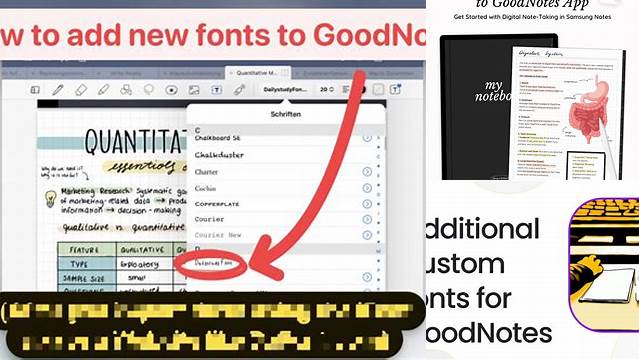
Best Fonts For GoodNotes 5: A Comprehensive Guide
Hey guys! Ever felt like your notes in GoodNotes 5 could use a little oomph? You're not alone! The right fonts can transform your digital handwriting from blah to brilliant. This guide is your deep dive into the world of fonts goodnotes 5, covering everything from finding and installing new fonts to mastering them for killer note-taking. Let's make those notes pop!
What are the Best Fonts for GoodNotes 5?
Choosing the best fonts goodnotes 5 can feel like finding a needle in a haystack. There are so many options, right? But don't sweat it! The ideal font depends on your personal style and what you're using GoodNotes 5 for. Are you a minimalist who loves clean lines? Or do you prefer a touch of elegance and personality? Think about the overall aesthetic you're going for. Do you want your notes to feel professional and polished, or more casual and creative? This initial reflection will help you narrow down your options and choose fonts that truly resonate with your note-taking style. Remember, the best fonts goodnotes 5 are the ones that make you excited to take notes!
The Importance of Font Pairing in GoodNotes 5
Font pairing is like the secret sauce of great design. Choosing the right combination of fonts can take your notes from looking good to looking amazing. The basic idea is to use two or three fonts that complement each other. Typically, you'll want one font for your headings and another for your body text. A common approach is to pair a serif font (like Times New Roman or Georgia) with a sans-serif font (like Helvetica or Arial). Serifs have those little feet or strokes at the end of the letters, while sans-serifs have a cleaner, more modern look. Pairing a serif and a sans-serif can create a nice visual contrast, making your headings stand out while keeping your body text readable. But don't be afraid to experiment! You can also pair two sans-serifs or two serifs, as long as they have enough contrast in weight and style. The key is to create a visual hierarchy that guides the reader's eye. A well-paired font combination makes your notes more engaging and easier to digest. So, play around with different font pairings and see what works best for you. Think of it as a fun design challenge!
Best Handwriting Fonts for GoodNotes 5
Want to give your notes a personal touch? Handwriting fonts are the way to go! These fonts mimic the look of real handwriting, adding a unique and human element to your digital notes. They're perfect for adding emphasis, creating a more casual vibe, or simply making your notes feel more…you. There are tons of handwriting fonts out there, ranging from elegant cursive scripts to messy and playful handwritten styles. When choosing a handwriting font, consider the overall tone you're going for. A formal script font might be great for headings or titles, while a more casual font might be perfect for body text. Readability is also key. You want a font that looks handwritten but is still easy to read, especially for longer passages of text. Try out different handwriting fonts and see which ones best capture your personality and style. Adding a handwritten touch to your notes can make them feel more authentic and engaging, almost like you're writing on paper. It's a fantastic way to personalize your GoodNotes 5 experience!
How to Change the Default Font in GoodNotes 5
Okay, you've found your dream font and you're ready to use it everywhere. But switching fonts every time you start a new note can be a pain, right? Luckily, GoodNotes 5 lets you set a default font for your notebooks! This is a huge time-saver and helps you maintain a consistent style across all your notes. To change the default font, go to the GoodNotes 5 settings (the gear icon in the top-right corner), then tap "Notebook Templates." From there, you can customize the default font, color, and paper style for your notebooks. Choose your favorite font and set it as the default, and boom! All your new notes will automatically use that font. This is especially useful if you have a particular font you love for note-taking or if you're trying to create a cohesive look for your digital notebooks. Setting a default font is a small change that can make a big difference in your workflow and the overall aesthetic of your notes. So, go ahead and set your default font and enjoy consistent, stylish note-taking!
Font Size Matters: Tips for Legible Notes in GoodNotes 5
It's not just about the font itself, guys, the size of your font is super important too! No matter how beautiful your chosen font is, if it's too small, your notes will be a pain to read. And if it's too big, you'll waste a ton of space. Finding the right font size is all about balance and legibility. A good rule of thumb is to use a font size that's comfortable to read on your iPad screen without having to squint or zoom in. For body text, a font size between 12 and 14 points usually works well. For headings, you'll want to use a larger font size to create a visual hierarchy and make them stand out. Experiment with different font sizes and see what feels best for you. Consider the font's design as well. Some fonts appear larger or smaller than others at the same point size. The key is to prioritize readability. Your notes are only useful if you can actually read them! So, pay attention to font size and make sure your notes are easy on the eyes. A well-chosen font size will make your notes more enjoyable to read and review.
Color Psychology and Fonts in GoodNotes 5
Did you know that colors can actually affect how we feel and think? It's called color psychology, and it's pretty fascinating! And guess what? It applies to fonts too! The color of your font can influence the overall mood and impact of your notes. For example, using a bright color like blue or green can create a sense of calm and focus, while a bold color like red can grab attention and signal importance. When choosing a font color, think about the message you want to convey and the emotions you want to evoke. If you're taking notes on a serious topic, you might opt for a more neutral font color like black or gray. If you're brainstorming creative ideas, you might choose a brighter, more playful color. You can even use different font colors to highlight key information or create visual cues in your notes. Just don't go overboard! Too many colors can be distracting and make your notes look cluttered. A few well-chosen font colors can add depth and personality to your notes, making them more engaging and memorable. So, experiment with color and see how it can enhance your GoodNotes 5 experience!
H2: The Role of Kerning and Tracking in GoodNotes 5 Fonts
Kerning and tracking might sound like technical jargon, but they're actually essential for creating legible and visually pleasing notes in GoodNotes 5. Kerning refers to the spacing between individual letters. Poor kerning can make words look awkward or even difficult to read. Tracking, on the other hand, refers to the overall spacing between all letters in a word or phrase. Tight tracking can make text feel cramped, while loose tracking can make it feel disjointed. Good fonts have carefully adjusted kerning and tracking, but sometimes you might need to tweak them yourself, especially if you're using a display font or working with headlines. GoodNotes 5 doesn't offer built-in kerning and tracking controls, but you can often adjust these settings in a separate font editor or design program before importing the font into GoodNotes 5. Paying attention to kerning and tracking can make a big difference in the readability and overall aesthetic of your notes. Even small adjustments can have a significant impact. **If a font looks